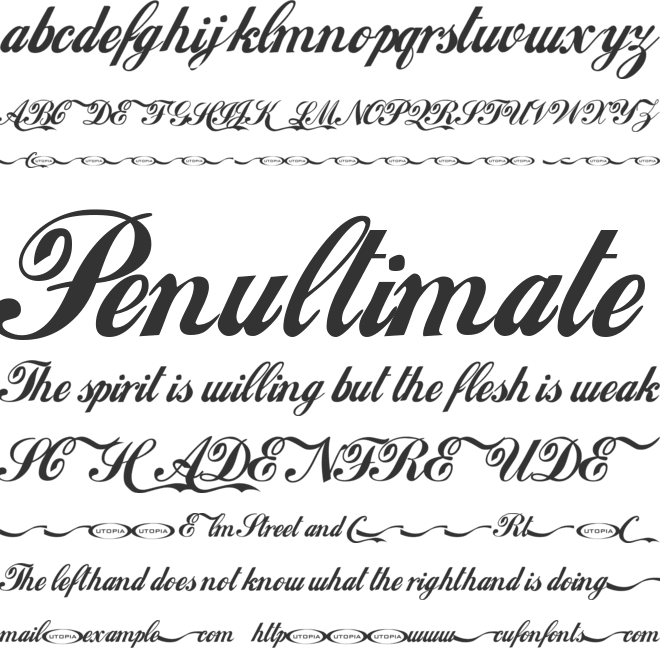
Loki cola by utopia is another similar font and it has more swash options, you can view its character and download it here. See preview loki cola font, write comments, or download loki cola font for free. The font loki cola is also perfect for branding projects, homeware designs.